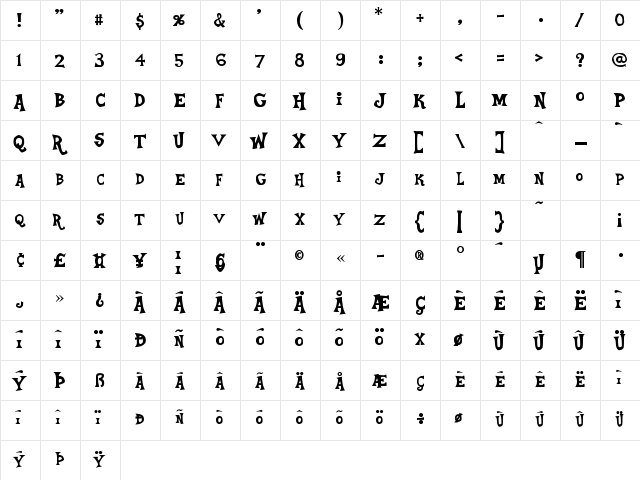
Equestria Regular
| Foundry | Neale Davidson |
| Designer | Neale Davidson |
Design Context for Equestria Typeface
Equestria is a composed and adaptable typeface that performs quietly and consistently across a wide range of design contexts.